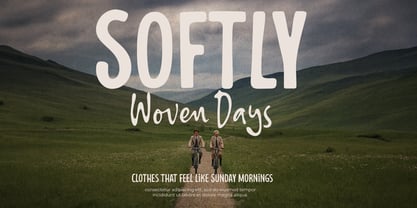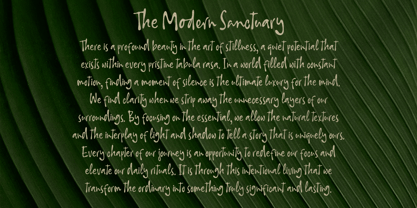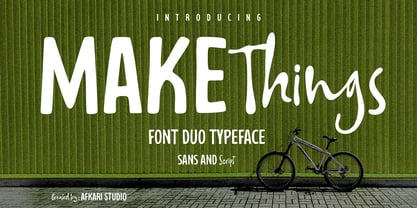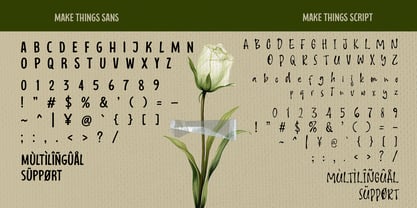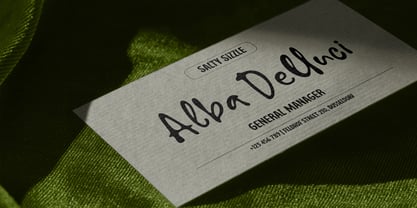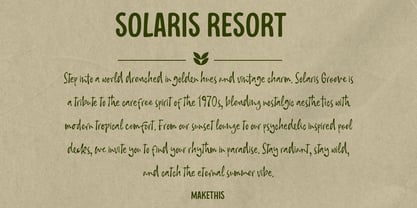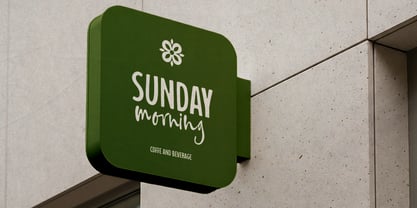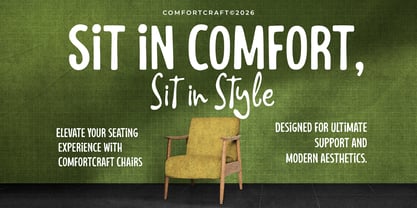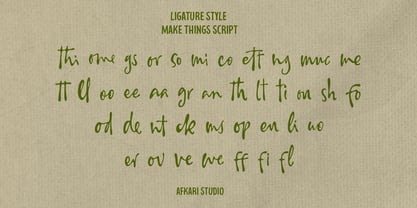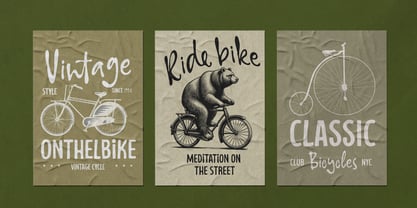
Make Things
The Make Things Font Family was designed by Musthafa Kamal Emje and published by Afkari Studio. Make Things contains 2 styles and family package options. More about this family
Make Things is a versatile sans and script font duo typeface designed to give your projects the perfect balance between clean modern structure and expressive handwritten style. This powerful combination allows you to effortlessly create stunning typography with contrast, harmony, and visual interest.
The sans serif font delivers a minimalist, professional, and highly readable look, while the script font adds a natural, flowing, and personal touch. Together, they create a dynamic pairing that works beautifully across a wide range of design applications.
Whether you're building a brand identity, crafting social media content, or designing elegant marketing materials, Make Things gives you the flexibility to mix and match styles for a polished and creative result.
Highlighted Features:
- Two font styles: clean sans serif & expressive script
- Uppercase, Lowercase, Number, and Punctuation
- Special alternates and ligatures
- Mültîlíñgúãl Sùppört for; ä ö ü Ä Ö Ü ß ¿ ¡
Unlock endless creative possibilities with Make Things—a perfectly paired sans and script font duo that brings balance, style, and personality to your designs. Start creating beautifully crafted typography today.